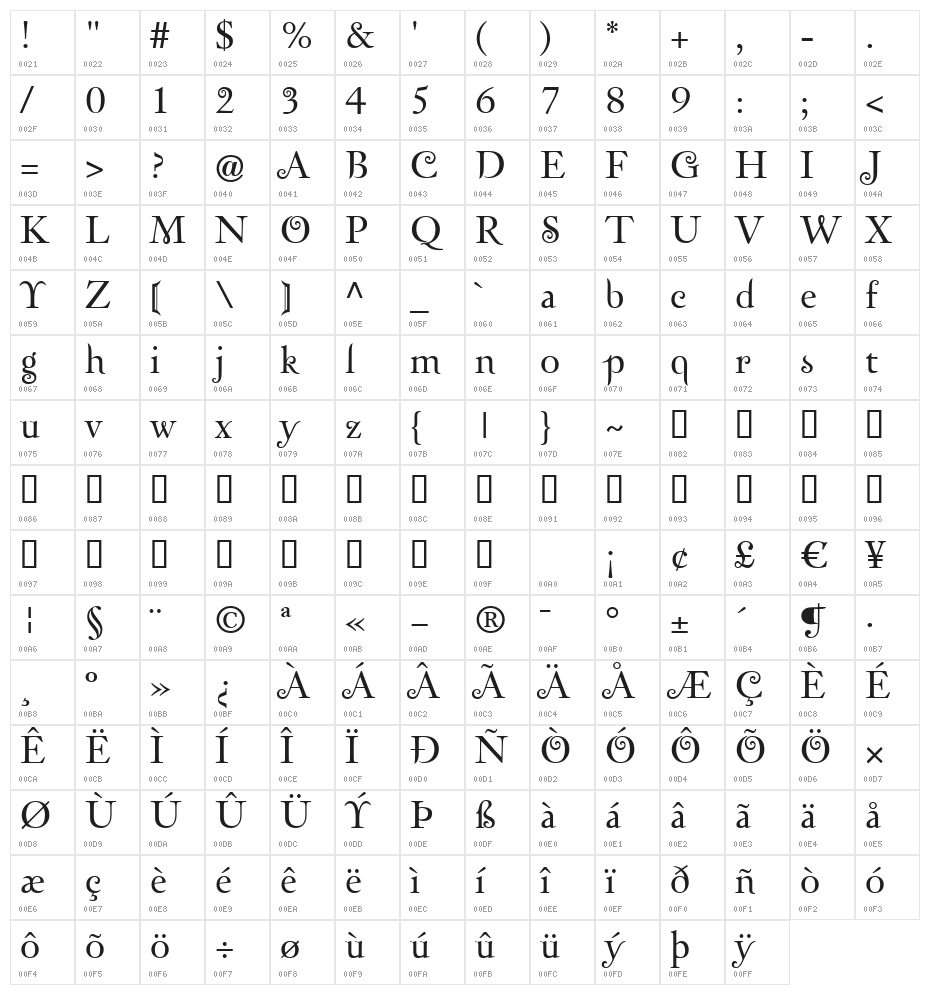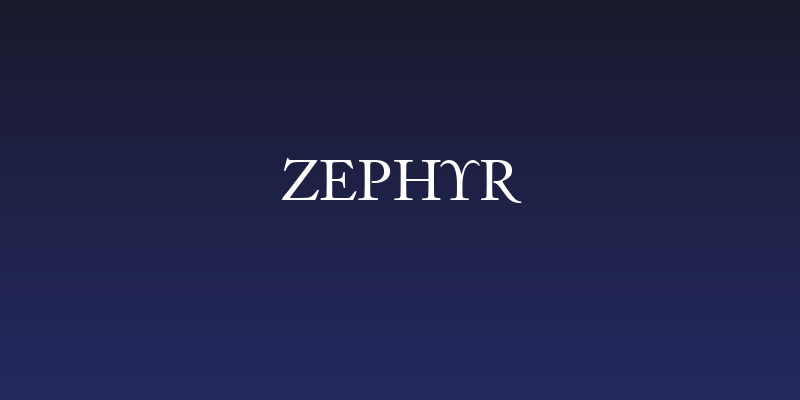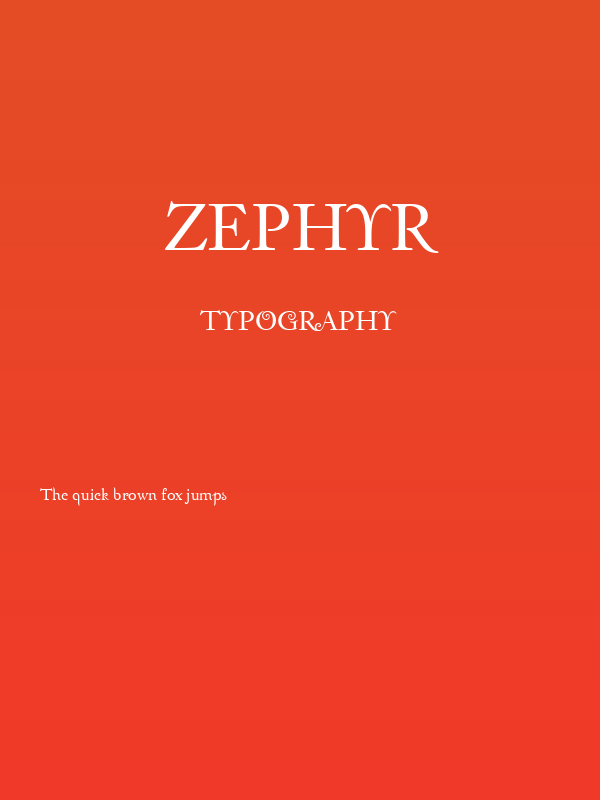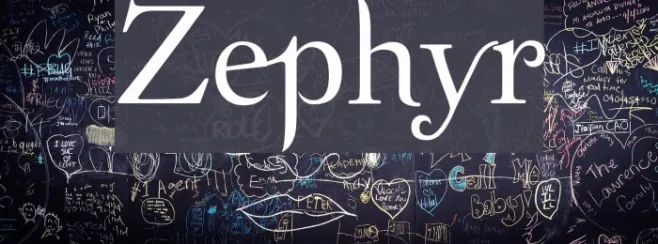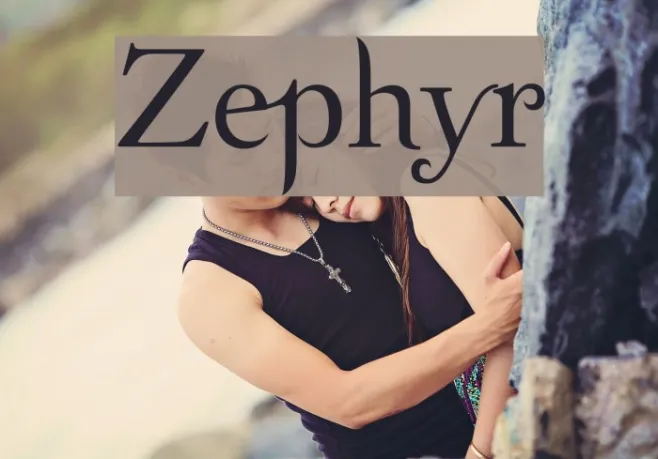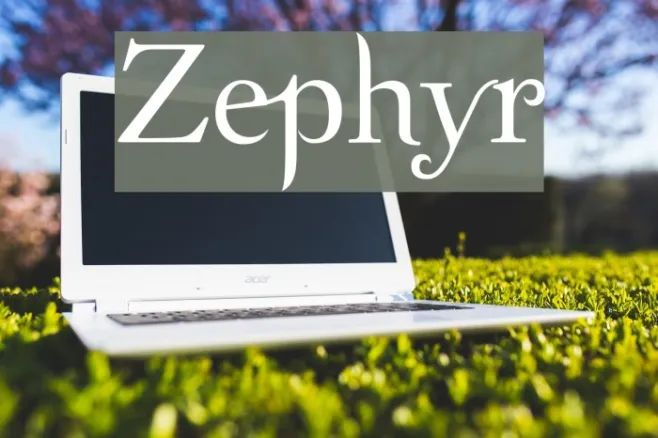
Zephyr Font
Zephyr Description
This font features a whimsical and decorative style with elegant swirls and flourishes that add a playful yet sophisticated touch. The uppercase letters are adorned with unique embellishments, particularly noticeable in characters like 'G' and 'Q', which have intricate curls. The lowercase letters maintain a more traditional serif appearance but still carry subtle decorative elements that enhance their charm. The numerals are consistent with the overall style, offering a cohesive look. Special characters are also thoughtfully designed, ensuring they match the font's aesthetic.